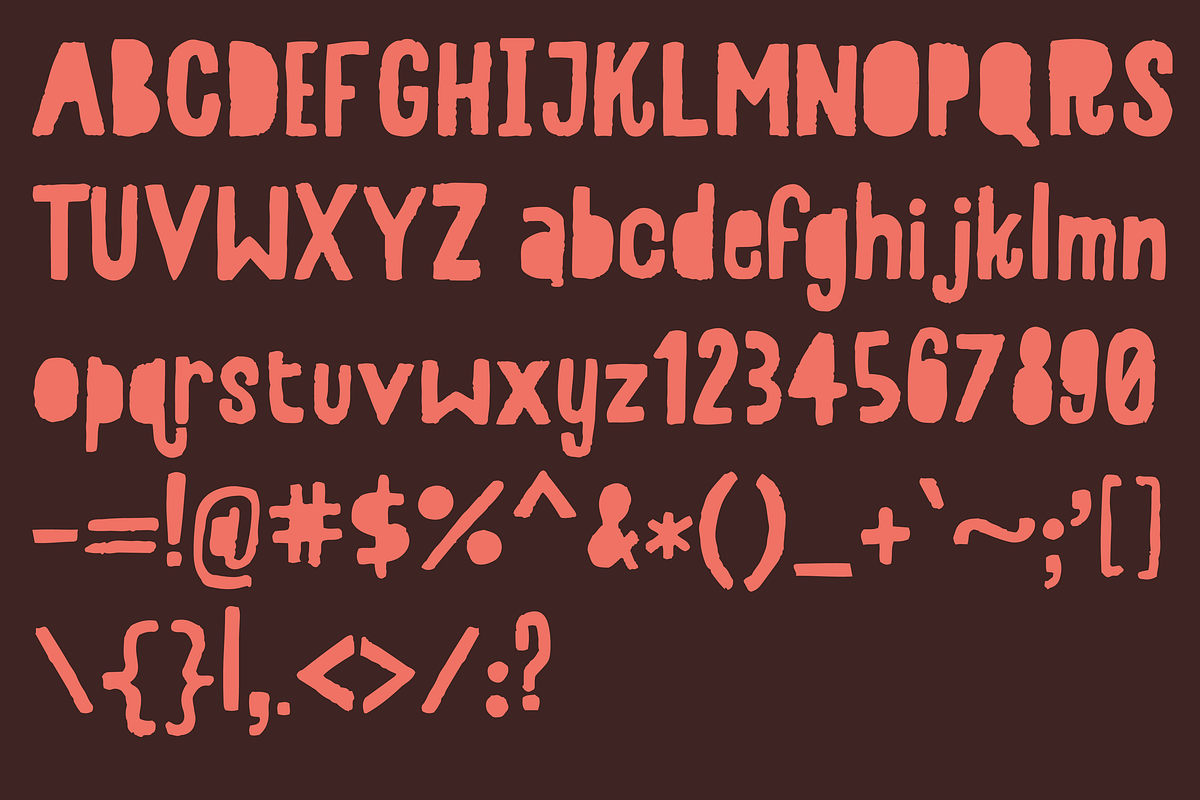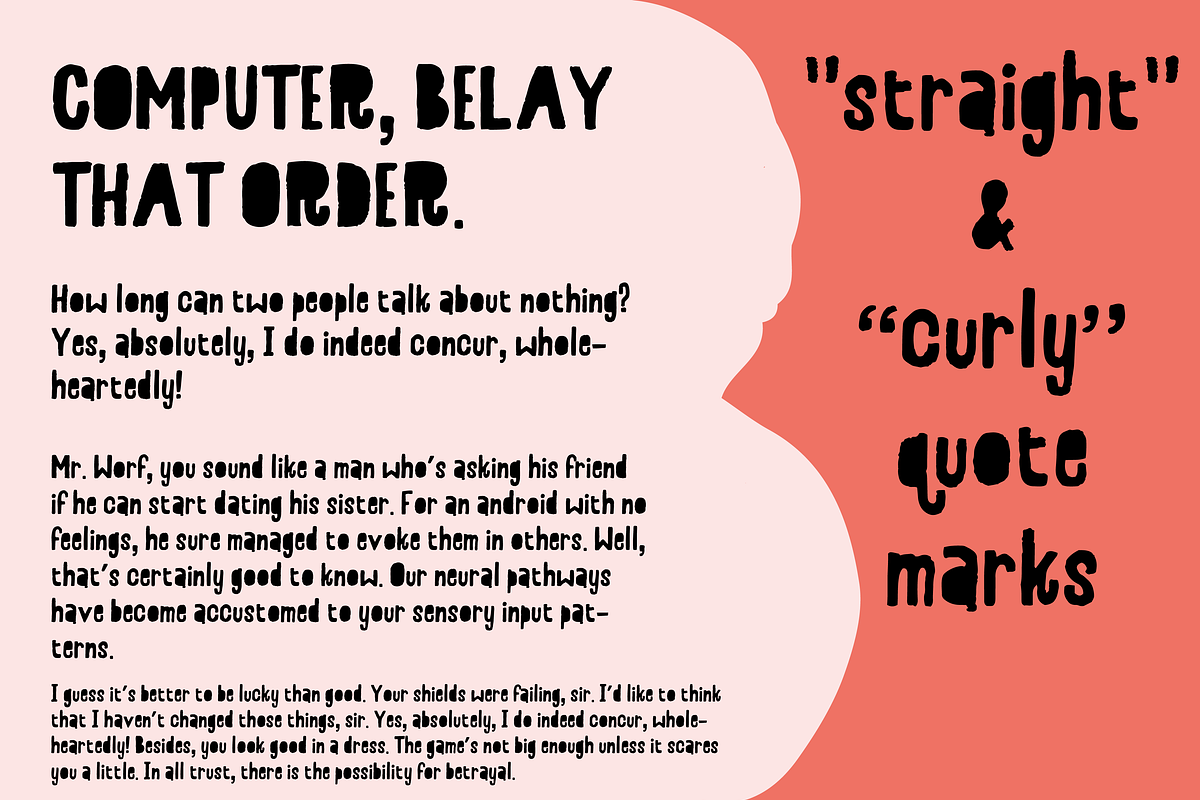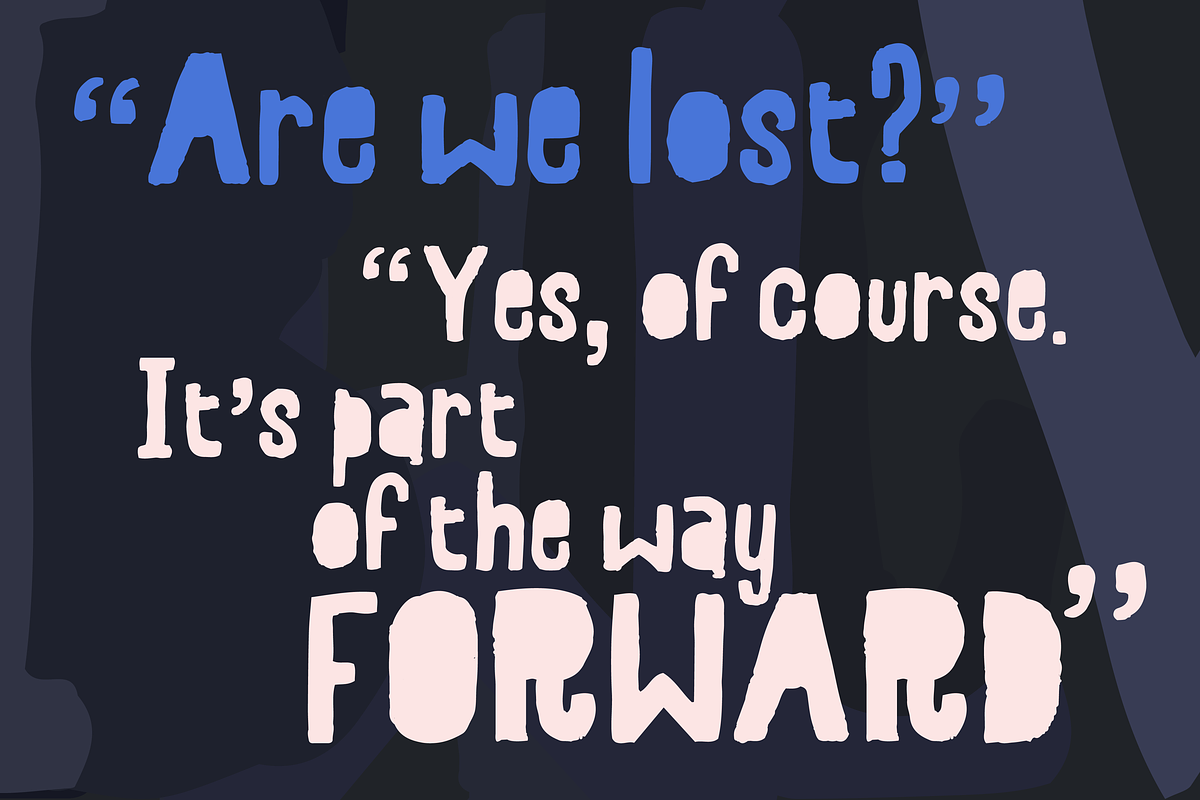
Bing! A hand-drawn block font
Introducing... Bing! A blocky, kind of wacky, and totally AWESOME, hand-drawn font.
This font was originally created for my personal branding . It was drawn on an iPad Pro using Procreate using my Paint Box brushes and then made into a font in Illustrator using Fontself.